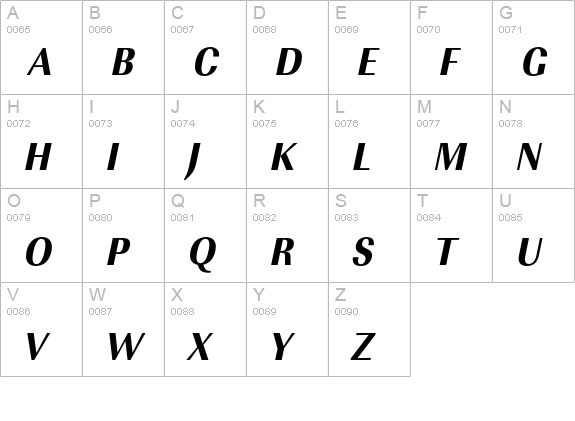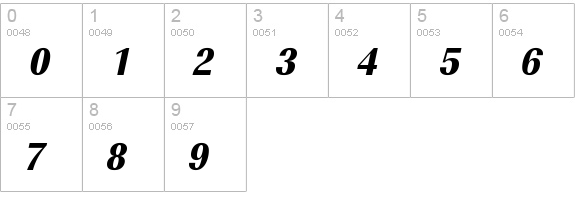
URWImperialTOTExtBolEN Oblique Font Details
URWImperialTOTExtBolEN Oblique is a distinctive, italic variant in the URWImperialTOTExtBolEN typeface family \xE2\x80\x94 well suited to design and typography projects.
URWImperialTOTExtBolEN Oblique is a stunning and versatile display font that exudes power and sophistication. This bold, slanted typeface is perfect for creating eye-catching titles, headlines, and logos that demand attention. Its sharp angles and strong presence make it a standout choice for any design project that requires a touch of elegance and modernity. And the best part? URWImperialTOTExtBolEN Oblique is available for free download at FontsMarket.com. Whether you're a professional designer looking to add a new font to your collection or a hobbyist seeking a fresh look for your projects, this font is a must-have. Don't miss out on the opportunity to elevate your designs with this striking and dynamic typeface - download URWImperialTOTExtBolEN Oblique today!